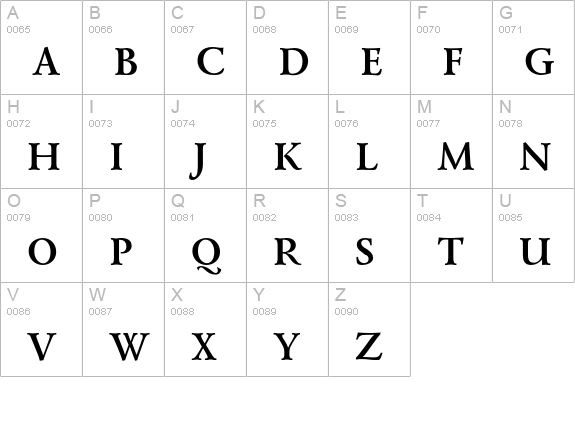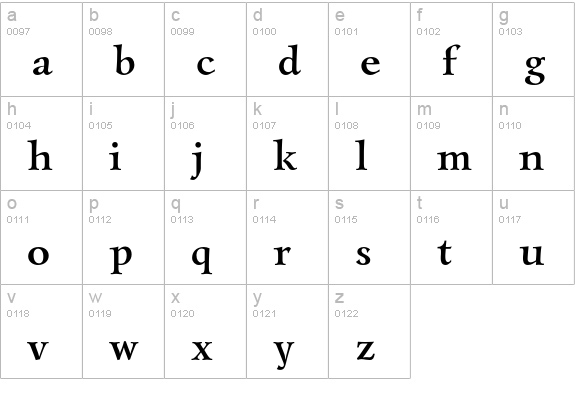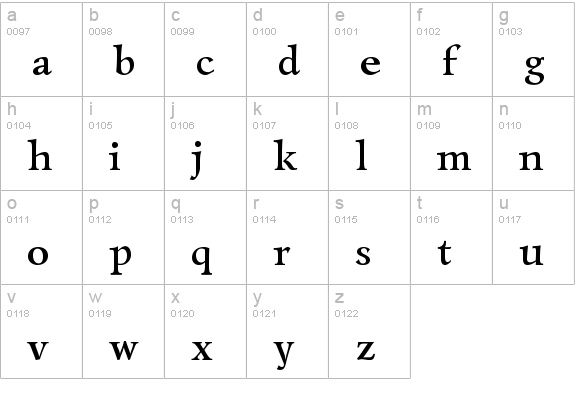
PM Lazurski Bold Cyrillic Font Details
PM Lazurski Bold Cyrillic is a strong, high-contrast variant in the PM typeface family \xE2\x80\x94 well suited to headlines, attention-grabbing titles, and strong calls-to-action.
Introducing PM Lazurski Bold Cyrillic font, a striking typeface that effortlessly captures attention with its bold and powerful presence. Crafted with precision and artistic flair, this font exudes a sense of confidence and sophistication, making it the perfect choice for impactful designs. PM Lazurski Bold Cyrillic font is meticulously designed to enhance any project, from eye-catching headlines and titles to bold statements and branding. Its unique combination of bold strokes and elegant curves creates a harmonious balance, allowing your message to stand out with utmost clarity and authority. The versatility of PM Lazurski Bold Cyrillic font makes it suitable for a wide range of design purposes. Whether you're working on a logo, poster, website, or any other creative endeavor, this font is guaranteed to make a lasting impression. And the best part? PM Lazurski Bold Cyrillic font is free! Available to download at FontsMarket.com, you can now effortlessly access this remarkable typeface without any restrictions. Embrace the freedom to create stunning designs that leave a lasting impact, without worrying about breaking the bank. So, why wait? Enhance your projects with the bold and captivating presence of PM Lazurski Bold Cyrillic font. Download it for free at FontsMarket.com and unlock a world of endless creative possibilities. Let your designs speak louder than words with this extraordinary font that commands attention and leaves a lasting impression.